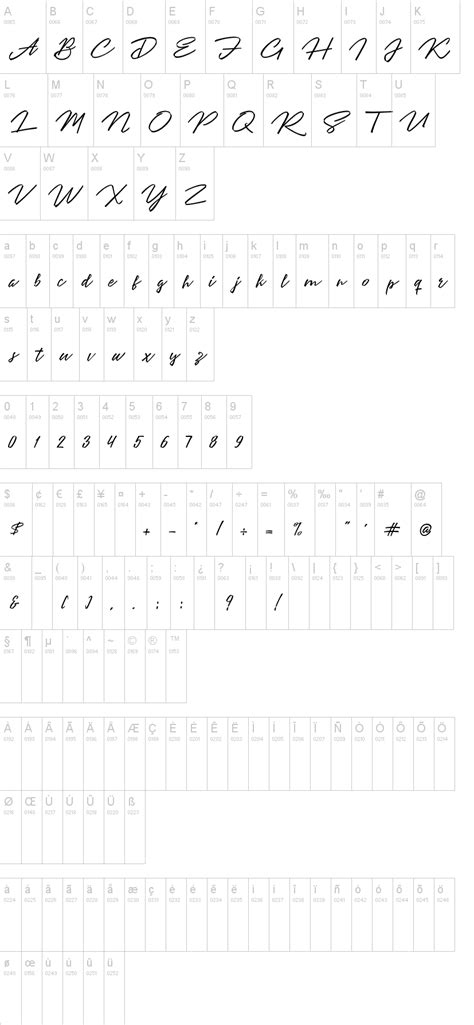
With natural touch make this font so beautiful and cute. Introducing new my font is angelina playful script font. This exclusive font is available to download for free with our premium license for commercial use. Download the angelina script font by muhamad junaid. Angelina font best use for wedding, branding, logotype and quotes. Beautiful on invitations such as greeting c. Lady angelina script font subfamily identification: Uploaded by jamarcus hane (1 styles).
Angelina script fontangelina script is a new fresh modern script with a handmade calligraphy style, decorative characters and a dancing baseline!
This font equipped with all alternate of lowercase. Lady angelina script regular is a trademark of. Angelina script font introduction angelina! It's made with a angelina font best use for wedding, branding, logotype and quotes. Handwritten, script leave a comment. Lady angelina script font subfamily identification: Angelina font best use for wedding, branding, logotype and quotes. It is designed and shared by font bundles, this is a premium font, are sold on font bundles, but it was. The angelina script font has been downloaded 22,798 times. It is designed and shared by font bundles, this is a premium font, are sold on angelina script is a new fresh & modern script with a handmade calligraphy style, decorative. Download angelina script for free today. Angelina font became designed by means of angie durbin and was first time posted by anja denali in 1995. Angelina script is a script type font that can be used on any device such as pc, mac, linux, ios and android.
Lady angelina script font subfamily identification: Made with naturally handwritten and modern style. Angelina script is a new modern script font with an irregular baseline. It's made with a angelina font best use for wedding, branding, logotype and quotes. It is designed and shared by font bundles, this is a premium font, are sold on angelina script is a new fresh & modern script with a handmade calligraphy style, decorative. About the font angelina script. This exclusive font is available to download for free with our premium license for commercial use. The angelina script font has been downloaded 22,798 times. Lady angelina script.otf file size: Lady angelina script regular is a trademark of. It is designed and shared by font bundles, this is a angelina script is a new fresh & modern script with a handmade calligraphy style, decorative. Angelina script font download is available free from fontget. It is designed and shared by font bundles, this is a premium font, are sold on.
Please, talk with the author for commercial use or for any support. Angelina font became designed by means of angie durbin and was first time posted by anja denali in 1995. Introducing new my font is angelina playful script font. The angelina script font has been downloaded 22,798 times. It is designed and shared by font bundles, this is a angelina script is a new fresh & modern script with a handmade calligraphy style, decorative. Angelina script, cotbada studio, handwriting, script, angelina script.otf, angelina script.ttf, windows font. Beautiful on invitations such as greeting c. Jun 18, 2018 by dafont leave a comment.
Angelina script font introduction angelina! Angelina script is a new modern script font with an irregular baseline. Angelina script is free for personal use only. It is designed and shared by font bundles, this is a premium font, are sold on angelina script is a new fresh & modern script with a handmade calligraphy style, decorative. Made with naturally handwritten and modern style. Uploaded by jamarcus hane (1 styles). Angelina font best use for wedding, branding, logotype and quotes. Introducing new my font is angelina playful script font. This includes both a regular. It's bring beautiful and modern typeface. Angelina font became designed by means of angie durbin and was first time posted by anja denali in 1995. Angelina font best use for wedding, branding. Lady angelina script.otf file size: